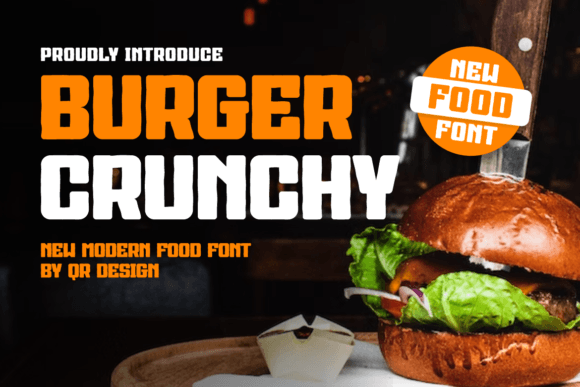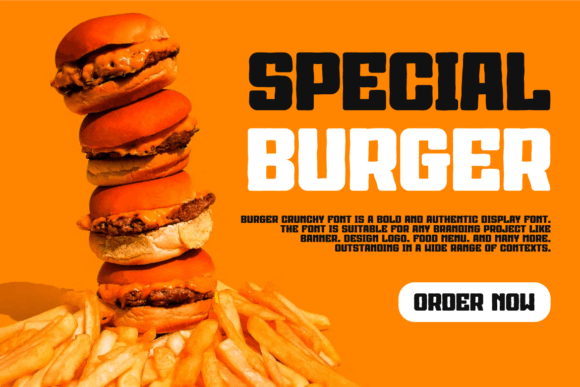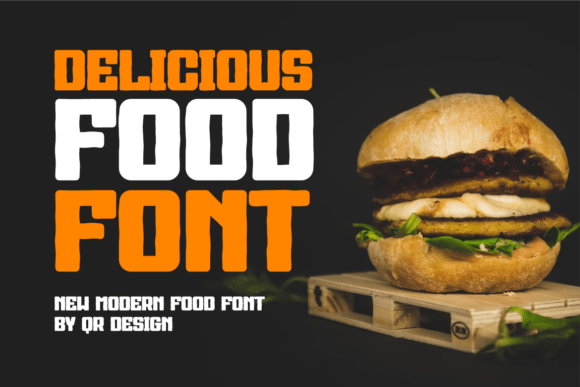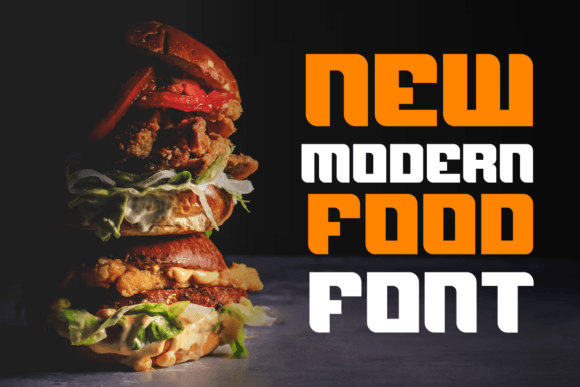
Burger Crunchy Font: Bold Display Font for Logo Design
About the Burger Crunchy Font
Make a bold statement with Burger Crunchy Font, a powerful and memorable font. Burger Crunchy is a fun and playful sans serif font. Add this cool font to each of your creative ideas and notice how it makes them stand out!
Burger Crunchy’s playful energy makes it ideal for headlines, short text blocks on packaging, posters for events targeting a young demographic, and playful branding elements. It excels in situations requiring a bold, attention-grabbing visual impact. However, its informality and relatively large x-height make it unsuitable for body text or UI elements where readability over long stretches is crucial.
For a balanced and harmonious design, pair Burger Crunchy with a clean sans-serif like Lato for body copy, or a classic serif like Garamond for a sophisticated contrast. If a more modern feel is desired, pairing it with a geometric sans-serif such as Futura can create a striking, contemporary aesthetic.
The font’s overall personality is best described as bold, friendly, and energetic; it projects a youthful exuberance, making it a strong choice for brands associated with fun, food, entertainment, or casual fashion.
Burger Crunchy Font Usage Examples
Burger Crunchy Font Example